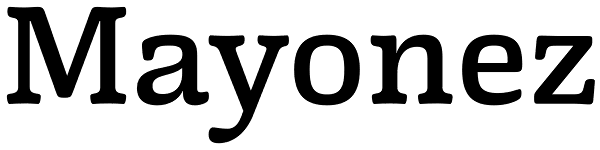
Mayonez
Mayonez is a typeface with rational structure and axis but softened with rounded contours and cupped serifs, getting as result a balance between seriousness and friendliness. The shapes have a soft appearance but without lacking definition. A more...